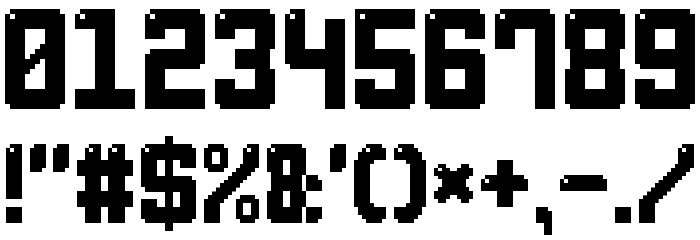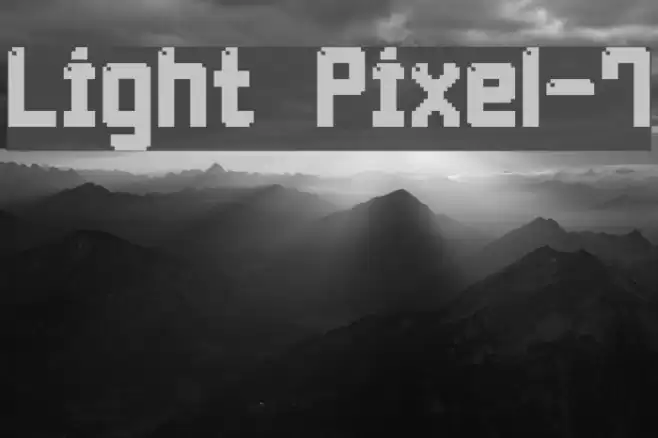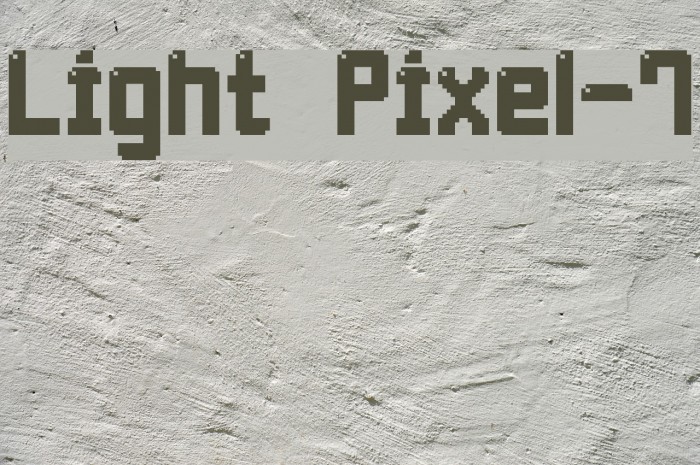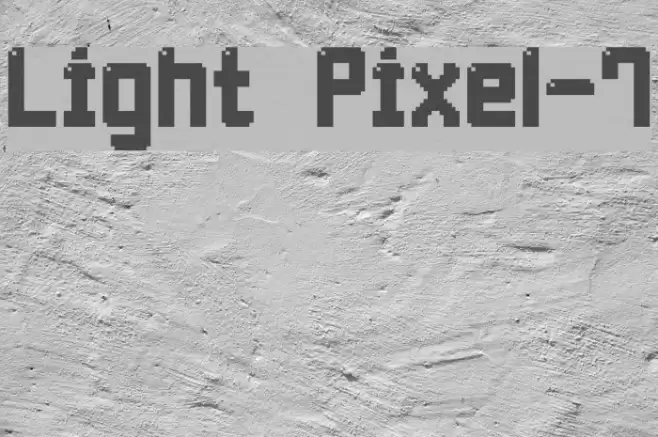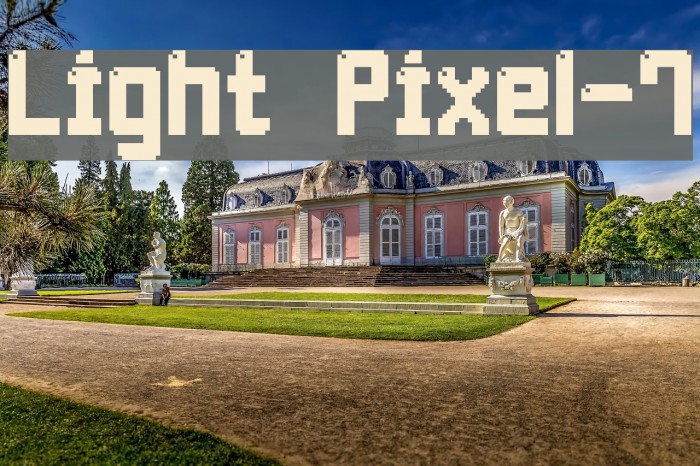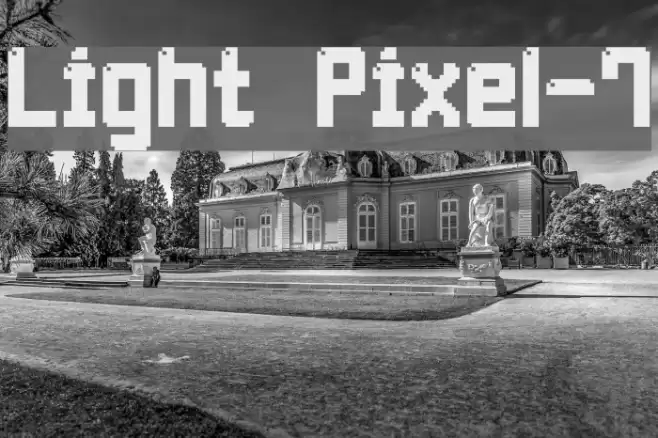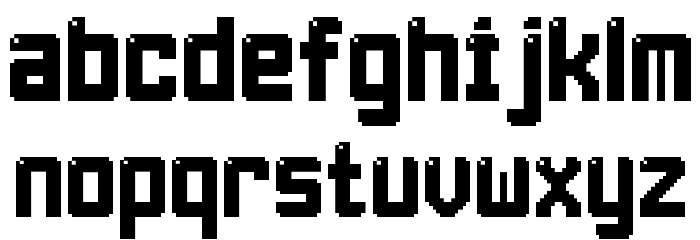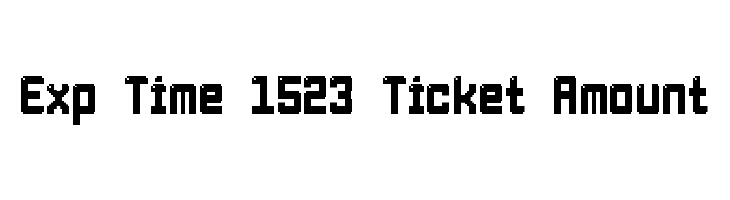
Light Pixel-7 Font
Light Pixel-7 Description
This font features a distinct pixelated style, reminiscent of early digital displays and retro video games. Each character is composed of a grid of square pixels, giving it a blocky and geometric appearance. The uppercase and lowercase letters maintain a consistent height, with sharp edges and uniform line thickness. Numbers and special characters follow the same pixelated design, ensuring a cohesive look across all elements. This font is ideal for projects that aim to evoke nostalgia or a vintage digital aesthetic. Its simplicity and clarity make it suitable for both display and text purposes, though it is best used in contexts where a playful or retro theme is desired.
A pixelated, retro-style font with a blocky, geometric design from Uncategorized fonts.
• Proposed Projects: Ideal for retro video game graphics, digital art projects, nostalgic branding, and any design work that seeks to capture a vintage digital feel.
• Overall Style: Vintage
• Use Case: Headlines, Logos, Digital Art